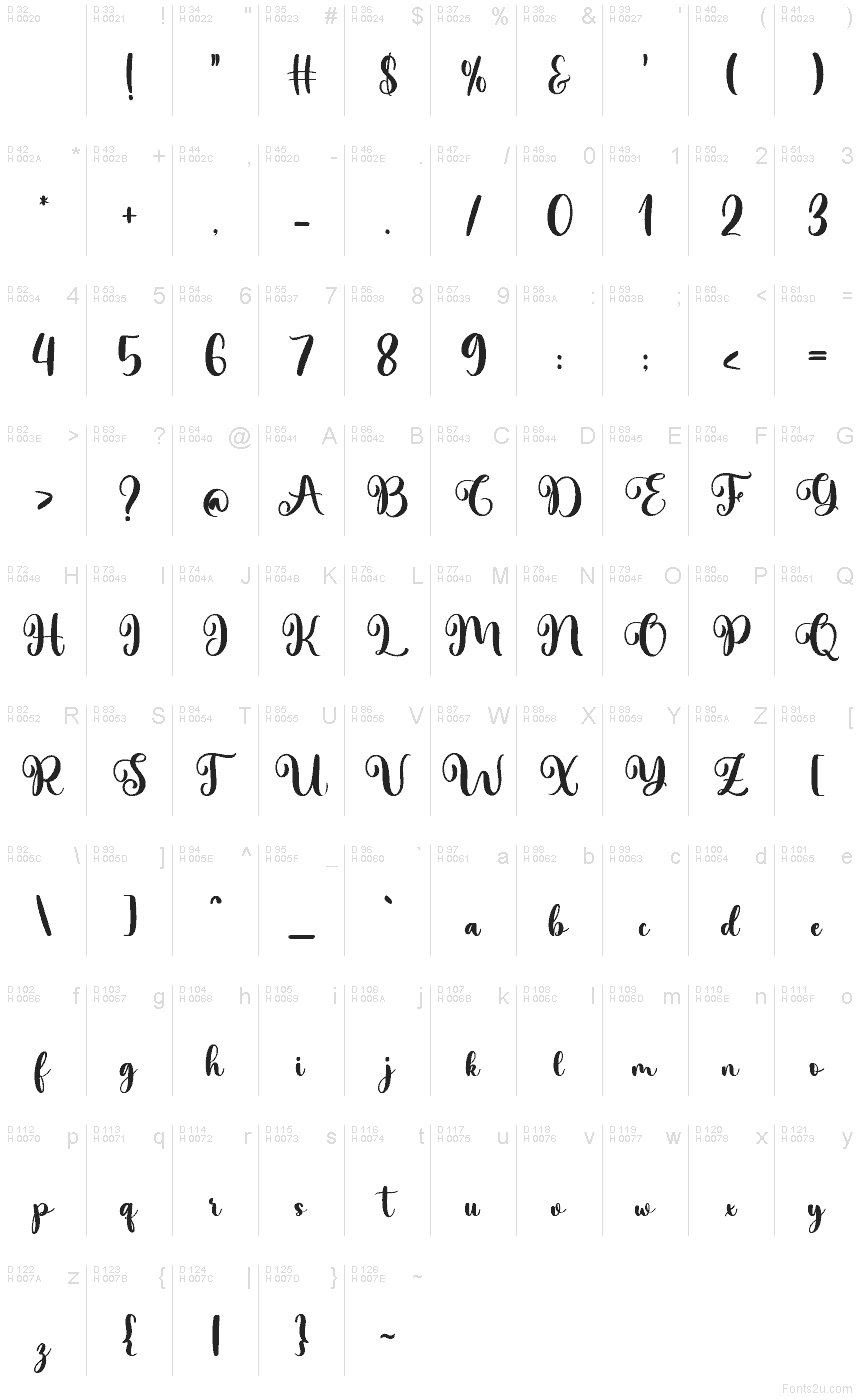
NCL Wittsy Bubry
NCL Wittsy Bubry font by Enxyclo Studio is a free calligraphy typeface with a lively, hand-inked feel. Its bouncy rhythm, curled endings, and softly textured strokes read like fresh brush lettering—playful without turning messy. The letters connect smoothly, giving lines a gentle sway that brings warmth to celebratory text and cozy branding.
Using NCL Wittsy Bubry, you can give wedding invitations, save‑the‑date cards, bakery logos, product labels, greeting cards, quote posters, and social posts an immediate handcrafted charm. The spacing feels welcoming at larger sizes, so let it sing in headlines; then pair it with a clean, light sans-serif for supporting copy to keep everything crisp and readable.